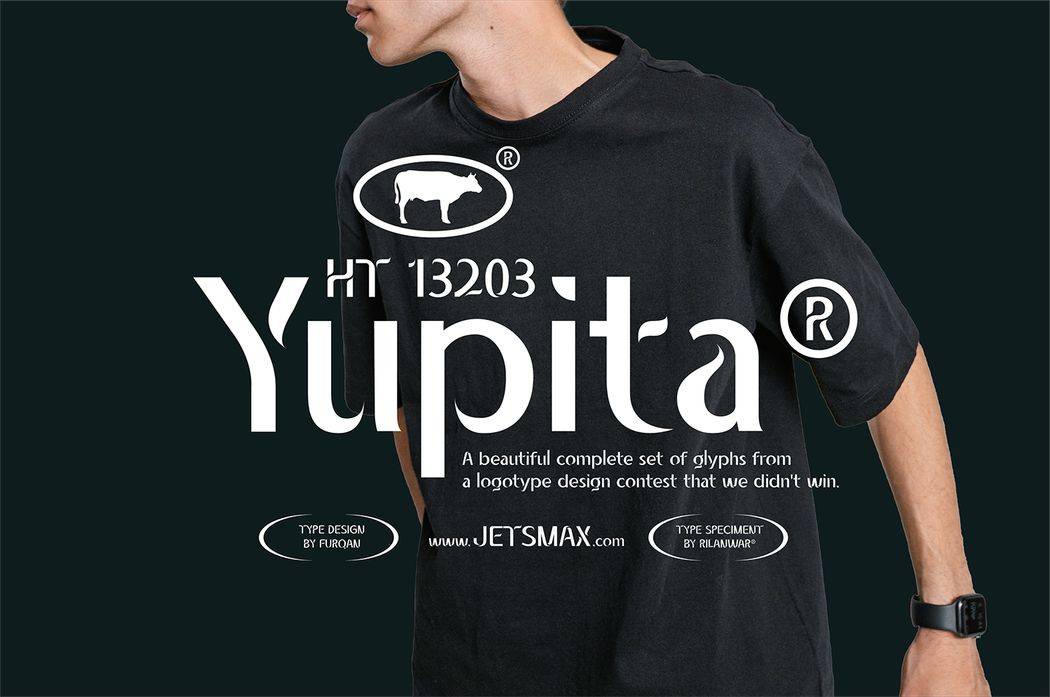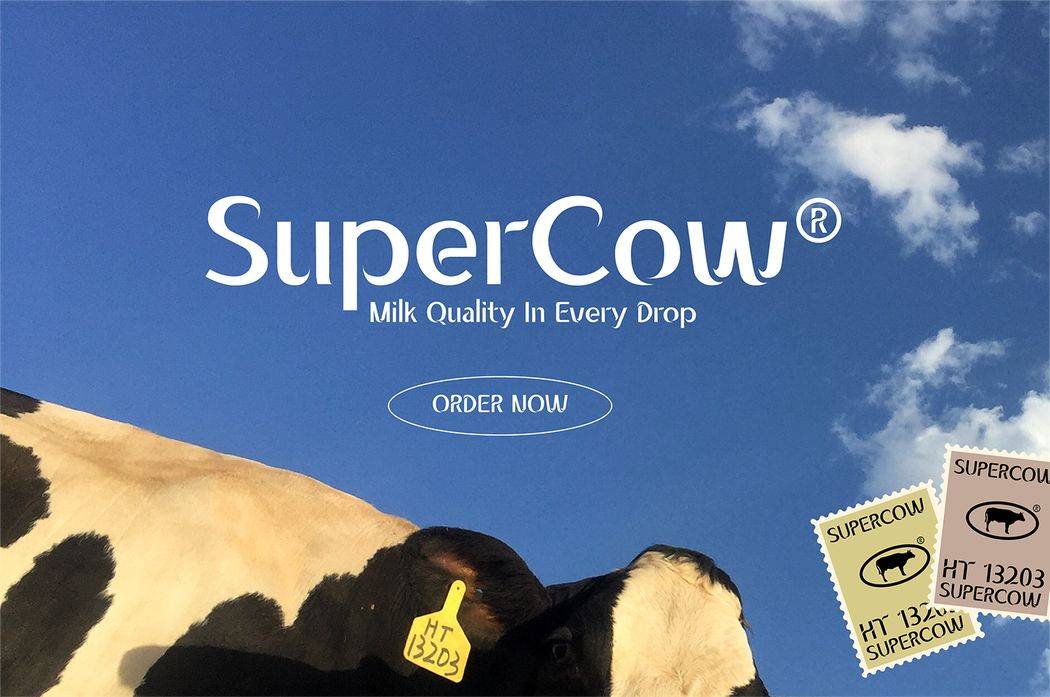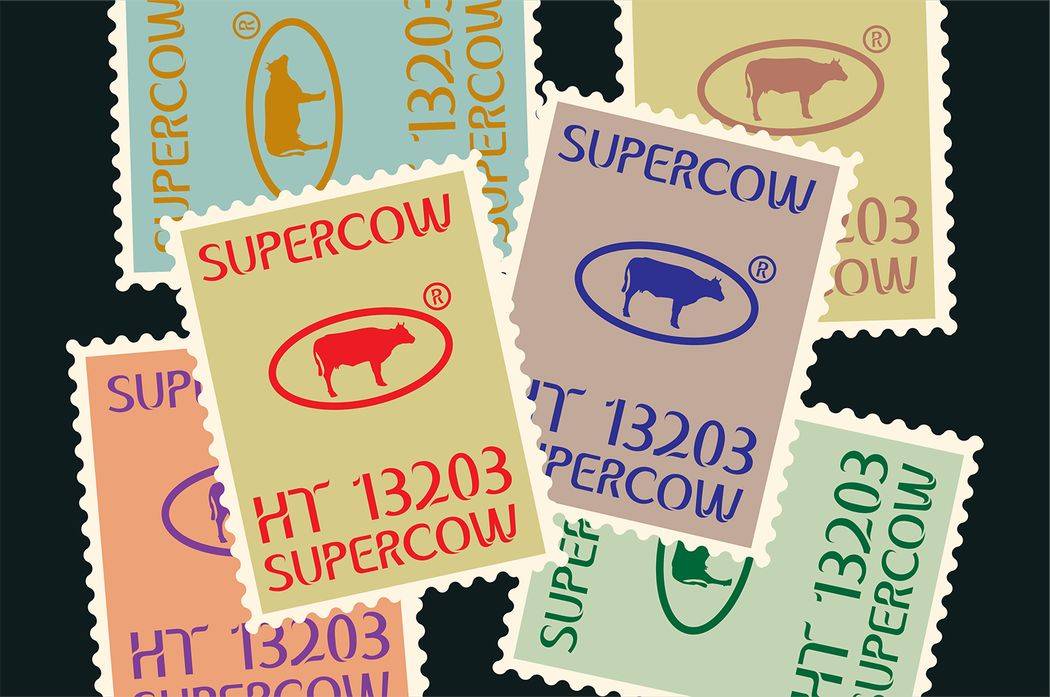
Yupita is a modern serif font with a unique, artistic flair characterized by its high contrast strokes and sharply angled terminals. Its distinctive letterforms and creative twists convey a bold, sophisticated personality, making it ideal for fashion branding, editorial headlines, and stylish logos where a contemporary yet elegant impact is desired. This font works particularly well in display settings where its distinctive design can stand out and capture attention.
Yupita Font
About Yupita Font
| Font family | Yupita Font |
| Designer | Furqan Sudirman |